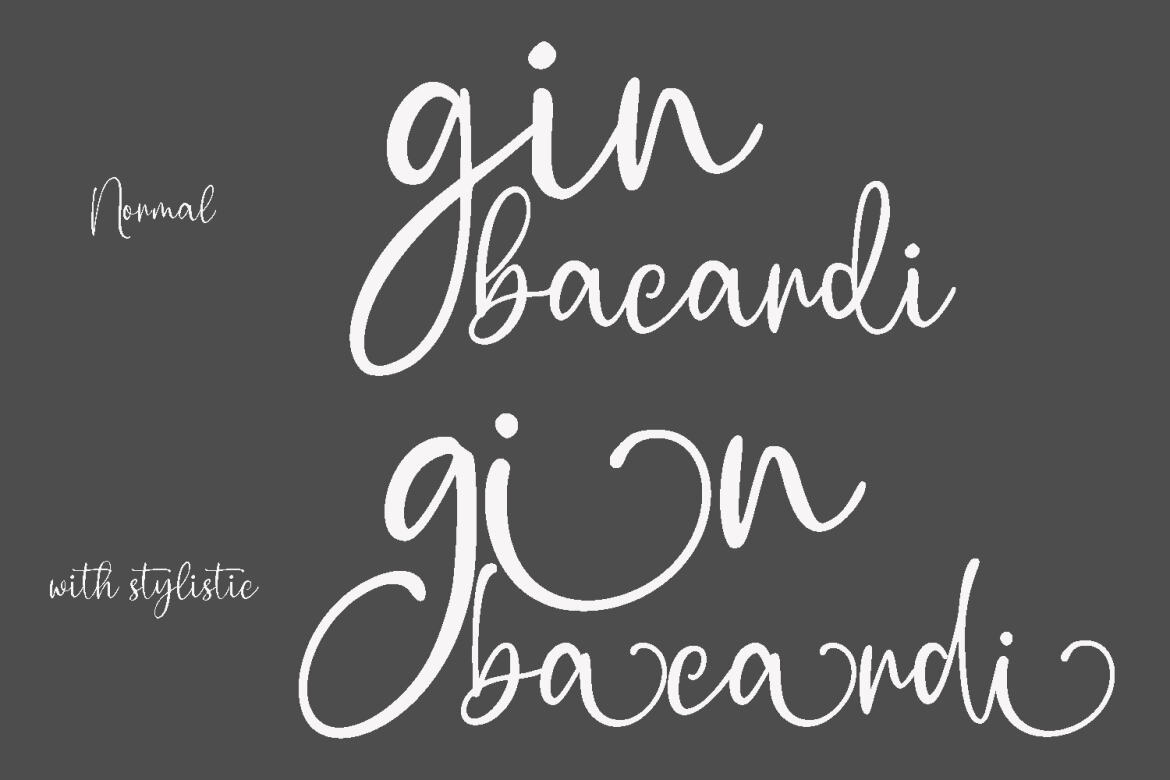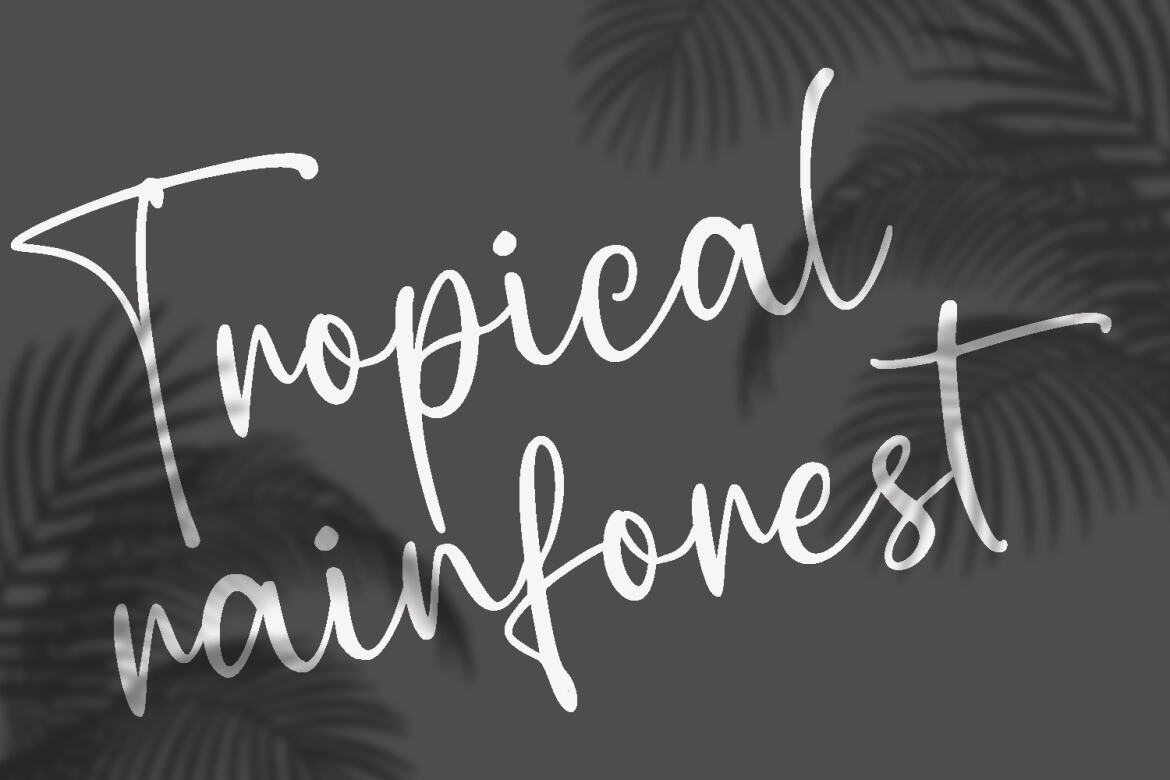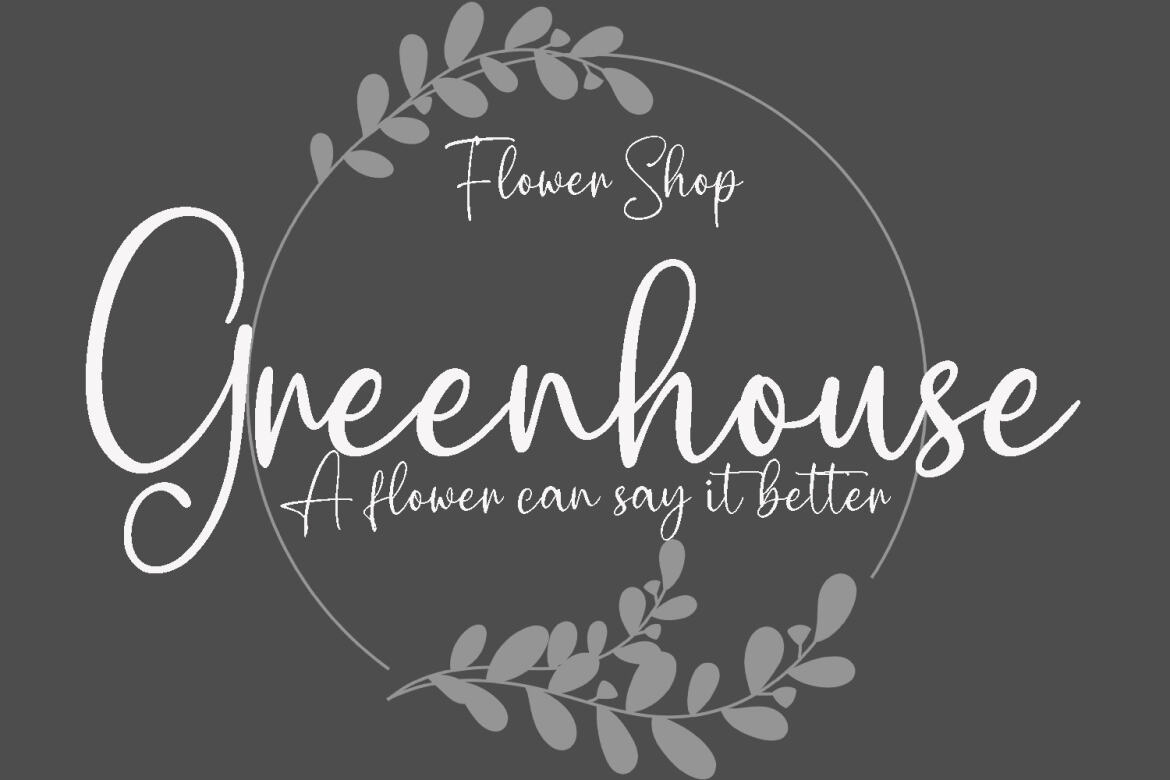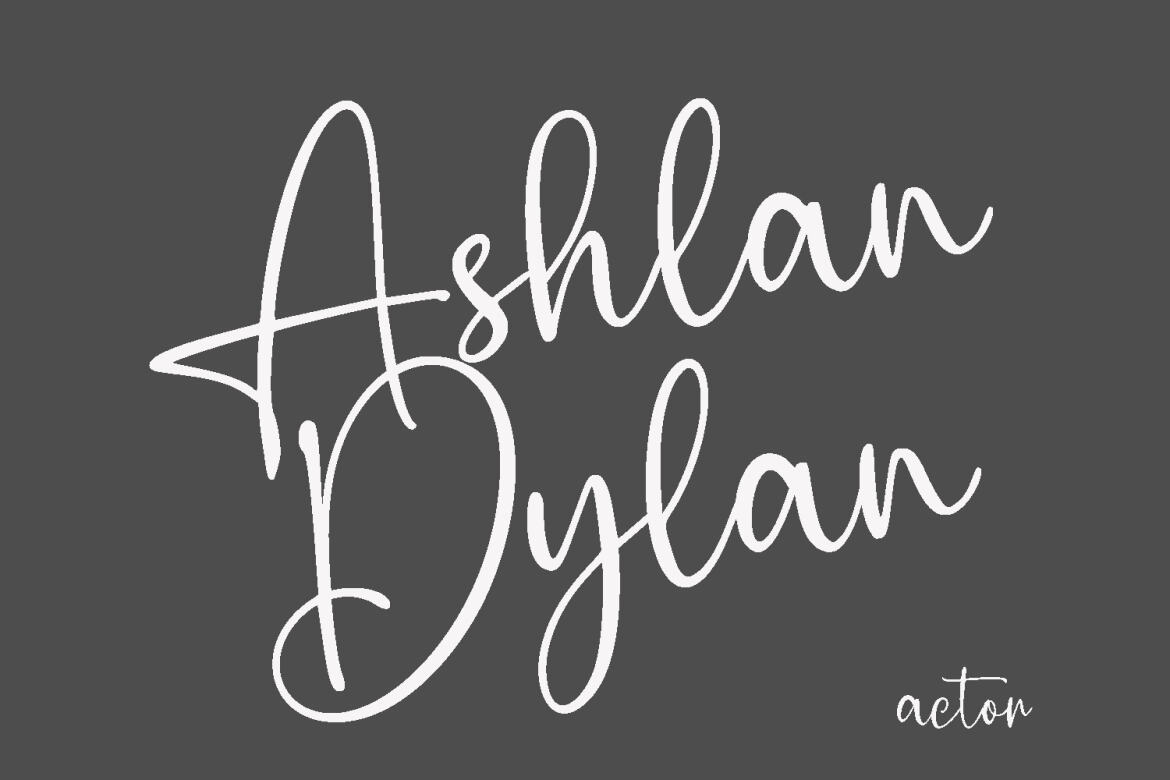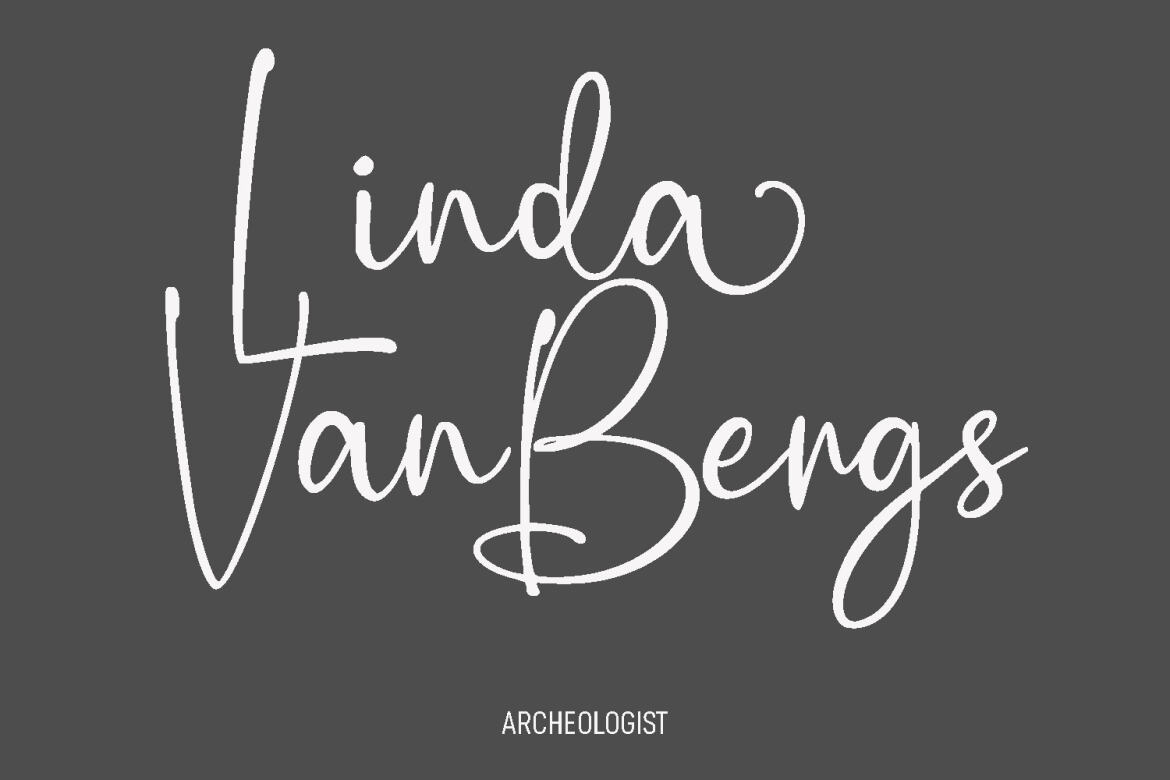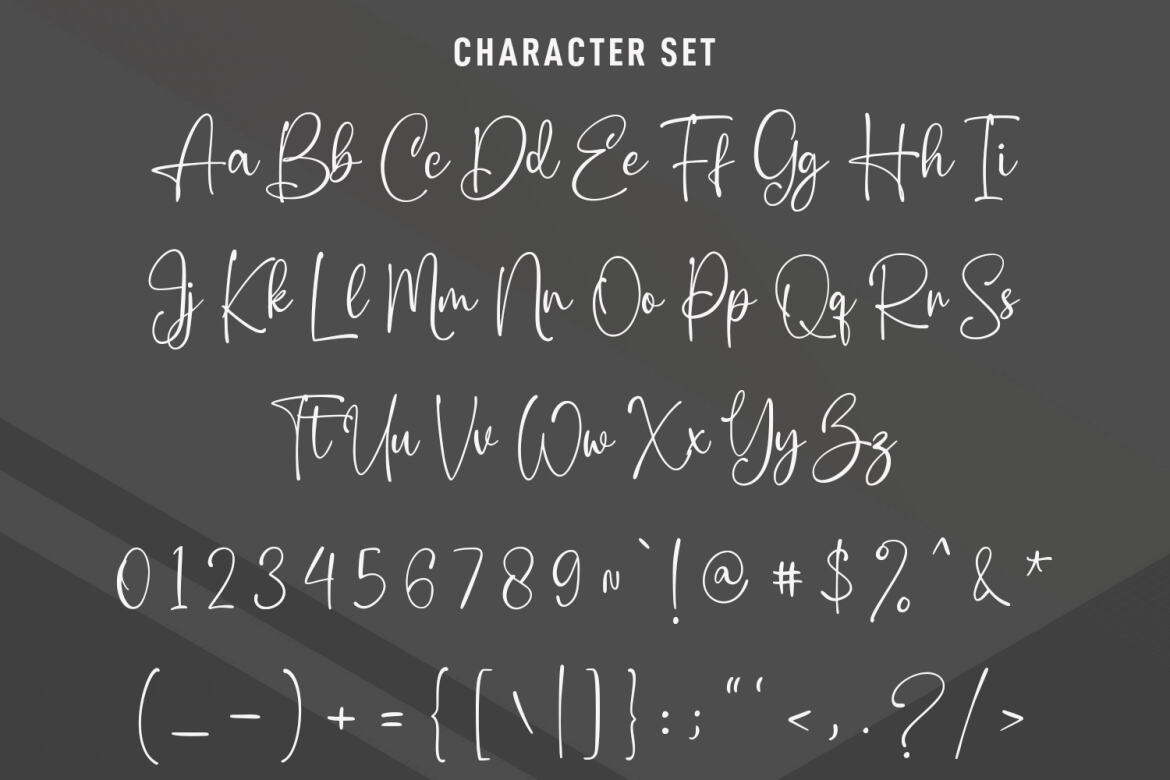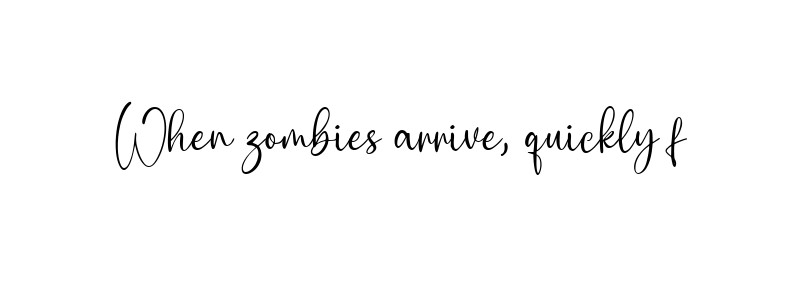
Bella Shiro FREE Script Font
Bella Shiro
Bella Shiro is a feminine modern signature script font. With light contrast ink-is stroke, fun character with a bit of ligatures and alternates. To give you an extra creative work. Bella Shiro font support multilingual more than 100+ language. This font is good for logo design, Social media, Movie Titles, Books Titles, a short text even a long text letter and good for your secondary text font with sans or serif. Make a stunning work with Bella Shiro font.